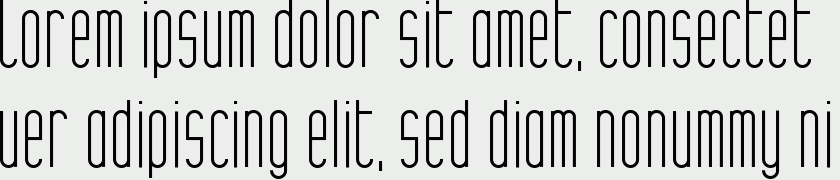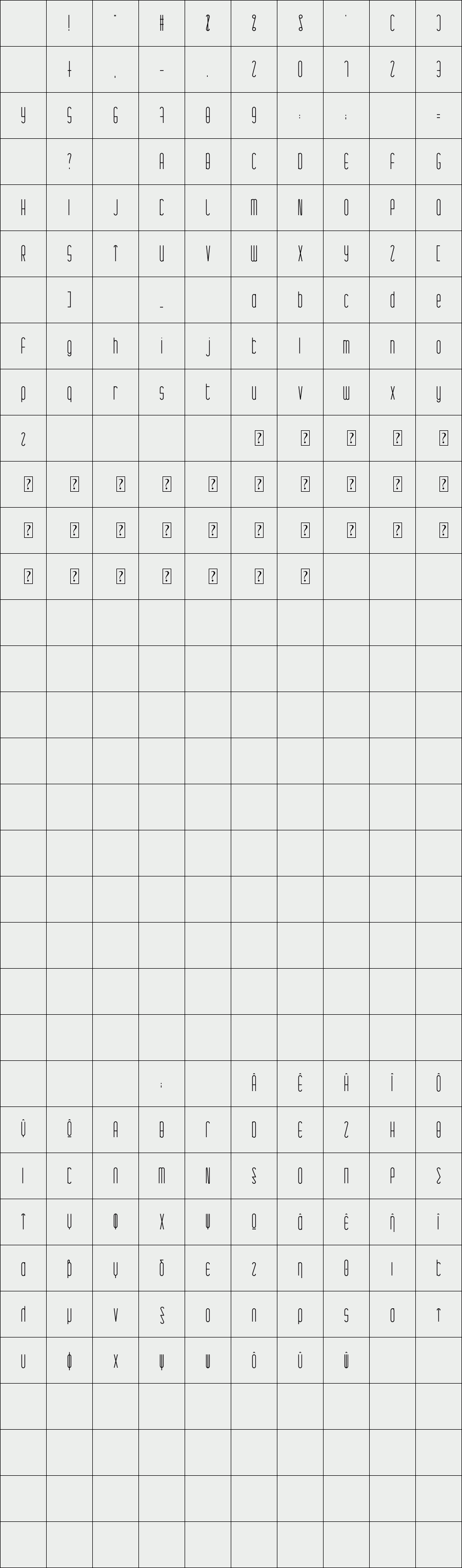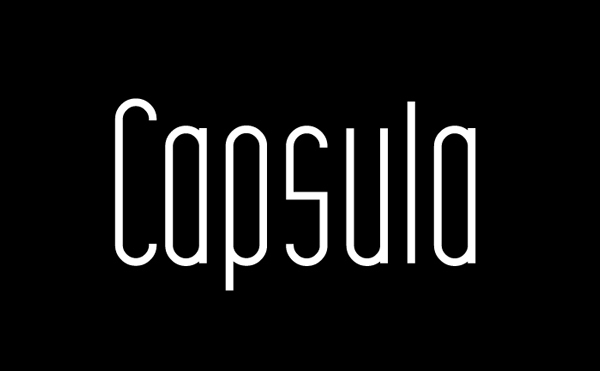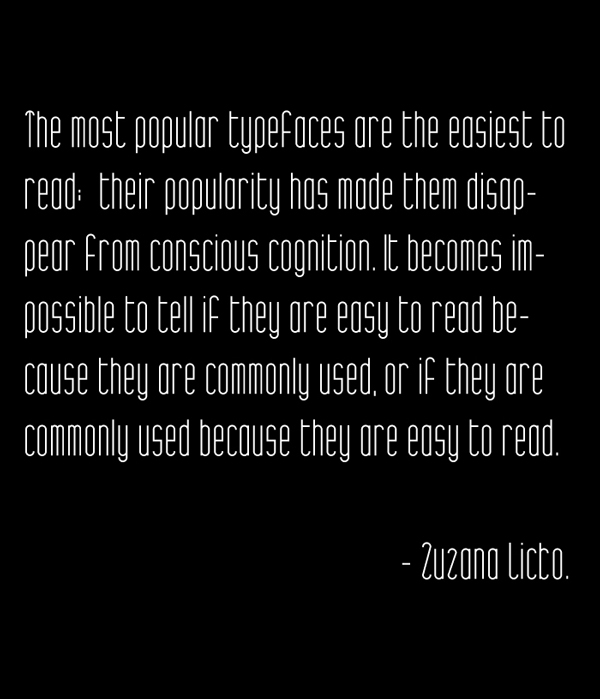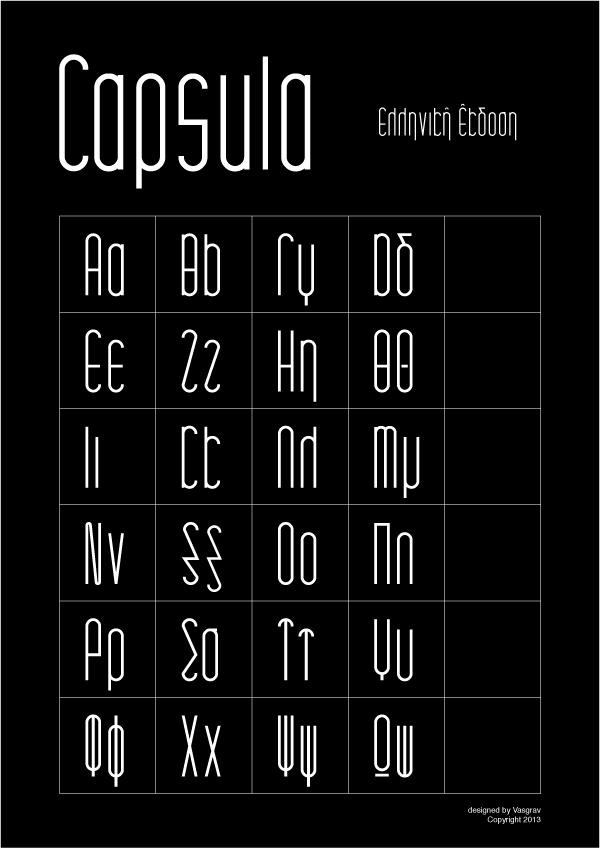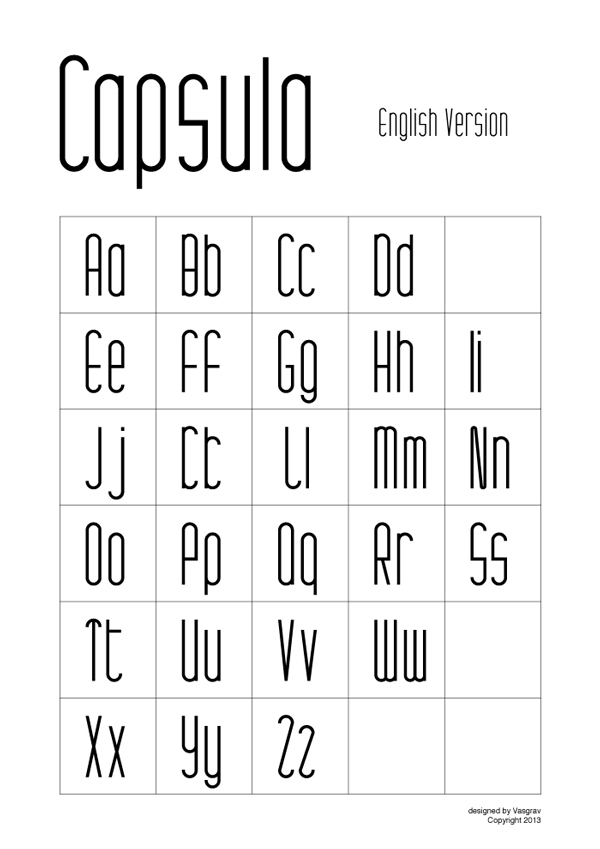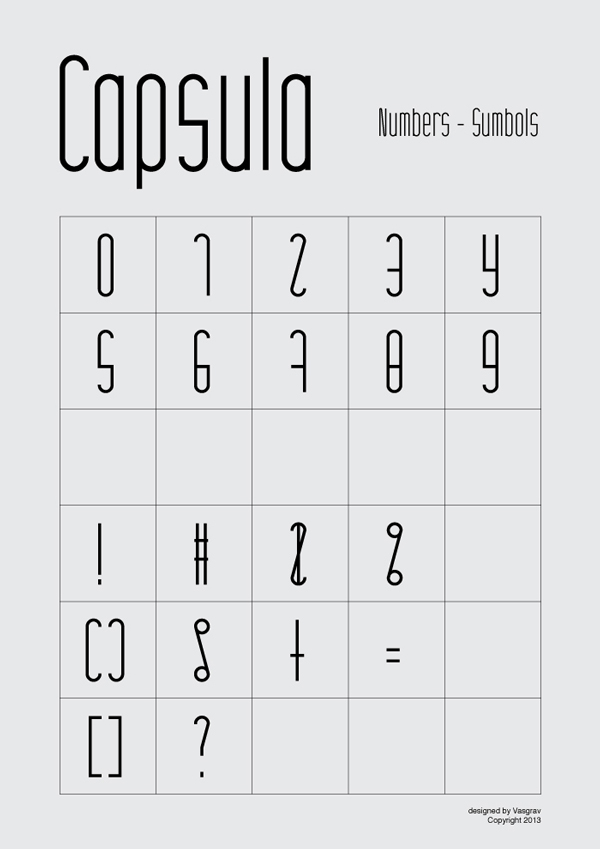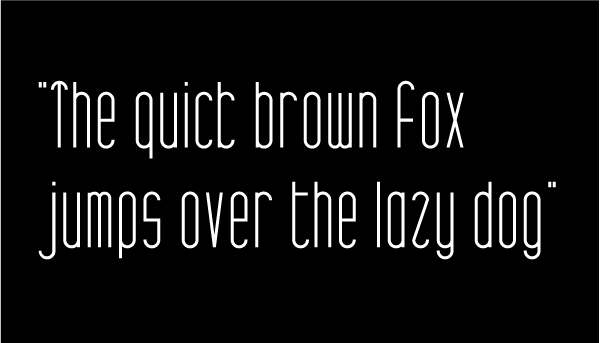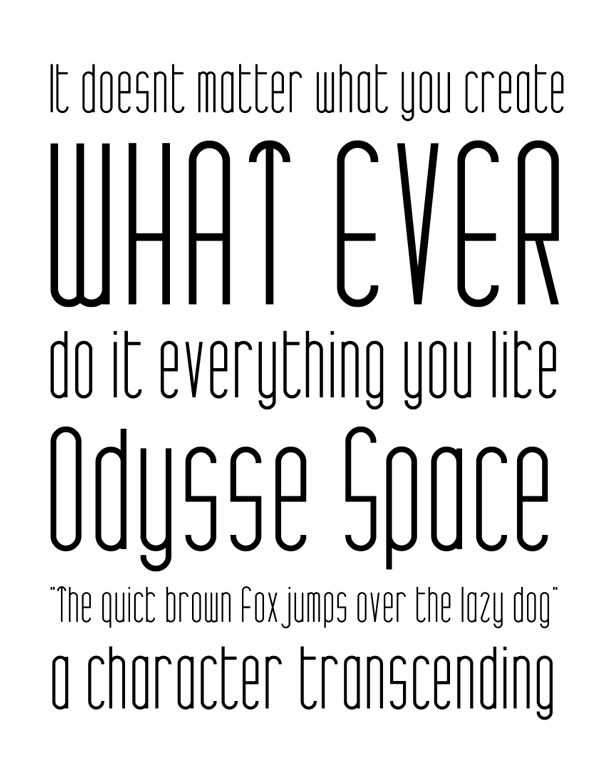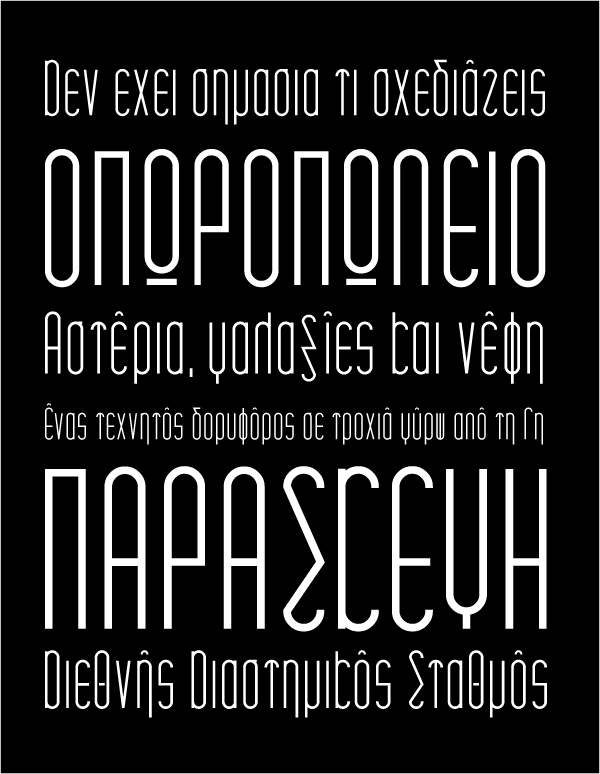
Capsula
Capsula Font is a new font designed for greek and english letters. The inspiration came from David Bowie's song, Space Oddity.
Designer: Vasgrav